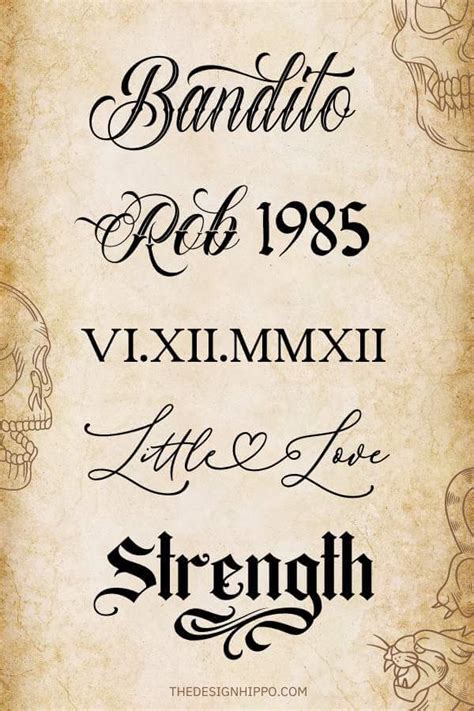
Best Tattoo Font, Vtks rock garage band is an artistic and handmade font. Feel free to choose any of the fonts as an inspiration for your next tattoo.
These decorative elements can also be extremely useful for tattoo designs. This font guarantees you a touch of style to your designs, thanks to its glyphs and standard ligatures. Cantora one font style for a name tattoo.
Bonus set of matching flourish design elements included as well. Tattoos letters and fonts symbols & emoji. Click to find the best 246 free fonts in the cursive tattoo style. It can be used for free (personal and commercial use), and it is perfect for elegant calligraphy designs with ligatures.
This is an awesome fonts bundle that includes 4 different font designs in it. List of best tattoo fonts. Find and download the right font for your next tattoo. For this tattoo, the long strokes of this font make it easy for anyone to read. As with fearless script, there's a a full set of both uppercase and lowercase letters,.
Cursive and script lettering tattoo style. These fonts are biker diamond, bad sailor, sailor’s diary typeface, and sailor’s diary slab. This is what’s known as a slab serif typeface, meaning it’s a bolder serif font that’s great for anyone trying to make a bold statement. Picking a font for your next tattoo is a very important decision. For this tattoo,.
One of the most common design styles in the tattoo industry is text. A gold standard in the world of the best tattoo lettering fonts. You want to make sure it hits the right note since there are so many different tattoo typographies. Vtks rock garage band is an artistic and handmade font. Gangsta typeface | tattoo fonts;
You can design your own customized business. This is also one of the artistic tattoo fonts for men. Find bundled into bandwick, a full set of uppercase and lowercase characters, numbers, and punctuation. Some of the best family tattoo ideas include quotes like “family first”, “family is forever”, and “family over everything” or names, portraits, and family trees. This tattoo.
These fonts are biker diamond, bad sailor, sailor’s diary typeface, and sailor’s diary slab. Perfect for branding, blog posts,. This font guarantees you a touch of style to your designs, thanks to its glyphs and standard ligatures. Such fonts work incredibly well for single words (with a dot at the end) or short lettering. Chango font style for a name.
Picking a font for your next tattoo is a very important decision. Feel free to choose any of the fonts as an inspiration for your next tattoo. This is also one of the artistic tattoo fonts for men. Fortunately, we have many unique tattoo font styles for men and women, such as calligraphy, cursive, and traditional styles. Cursive and script.
Of course, a typewriter font cannot be missing from our list of best tattoo fonts. Hero beam tattoo is a decorative vintage typeface, remastered for a modern performance. For this man, the script with a few stylish lettering is the right choice. This font is not multilingual, but does contain the basic latin characters, numbers and punctuation. Malekith created by.
Malekith created by brightone art. Go italics handwriting elegant graffiti arabic ancient. A more modern looking font to use in your typewriter tattoo is the colón mono font. Some of the best family tattoo ideas include quotes like “family first”, “family is forever”, and “family over everything” or names, portraits, and family trees. So, pick according to your.
Here, we have gathered the best tattoo fonts so you can have more inspirations and ideas. A simple free tattoo font that can you can use to design your tattoo. Creatives, feast your eyes on malekith, a gorgeous cursive script for crafters. Perfect for branding, blog posts,. As with fearless script, there's a a full set of both uppercase and.